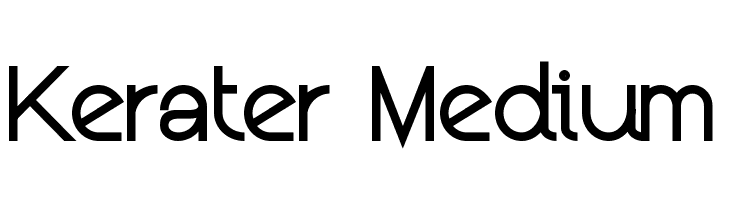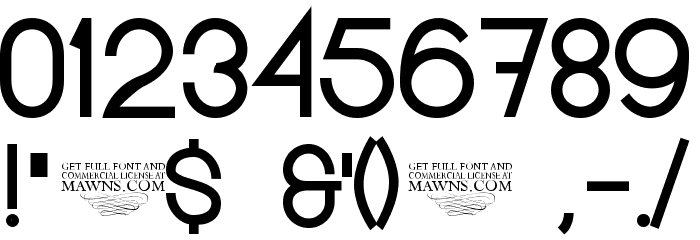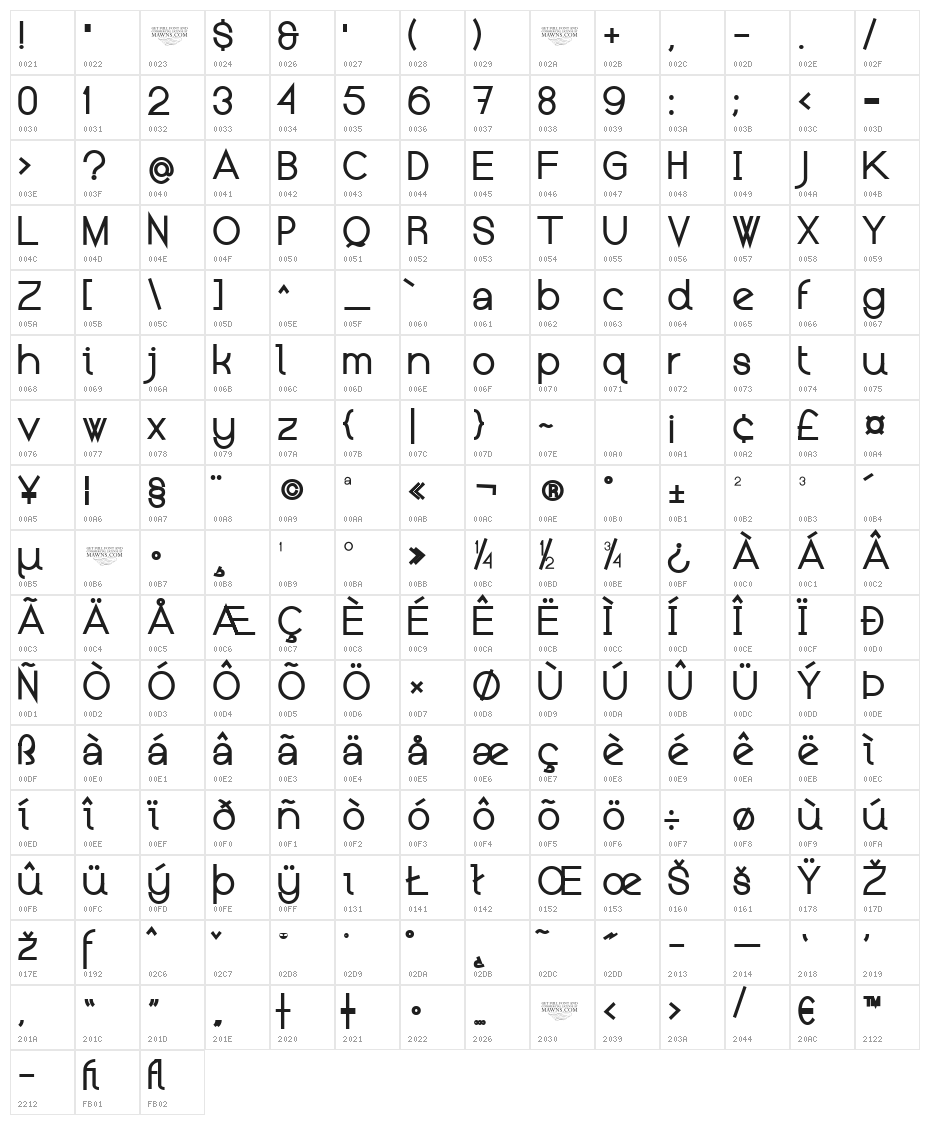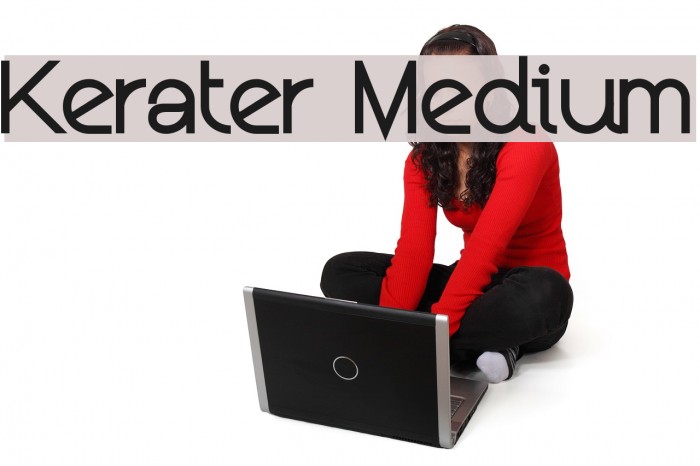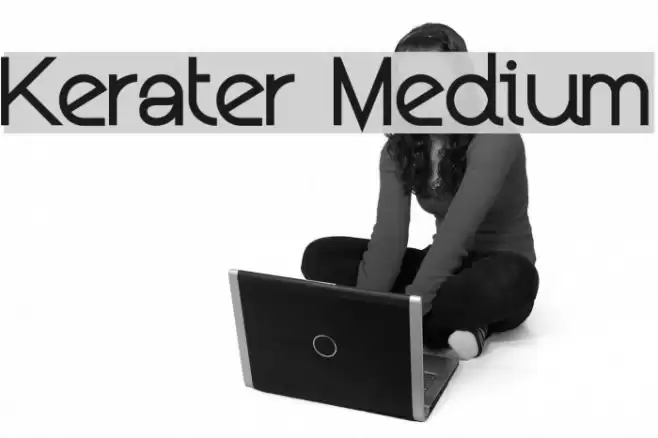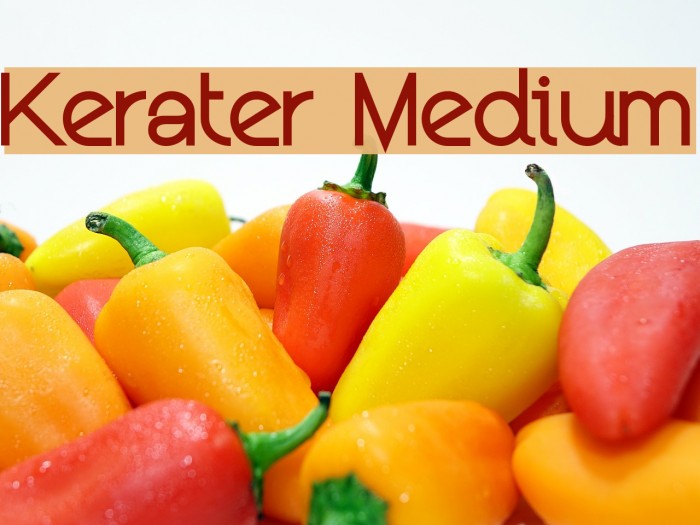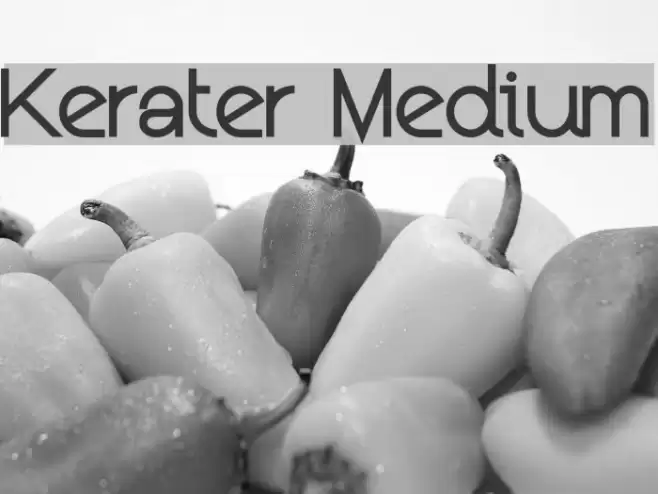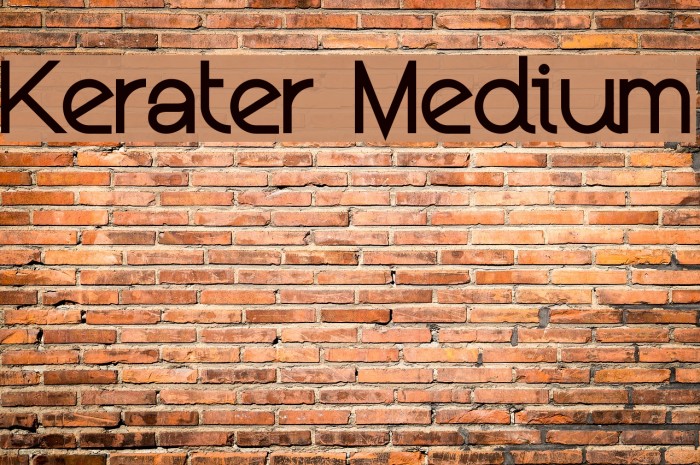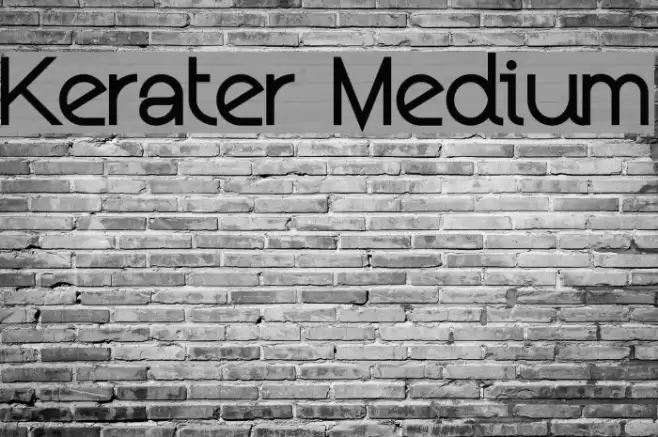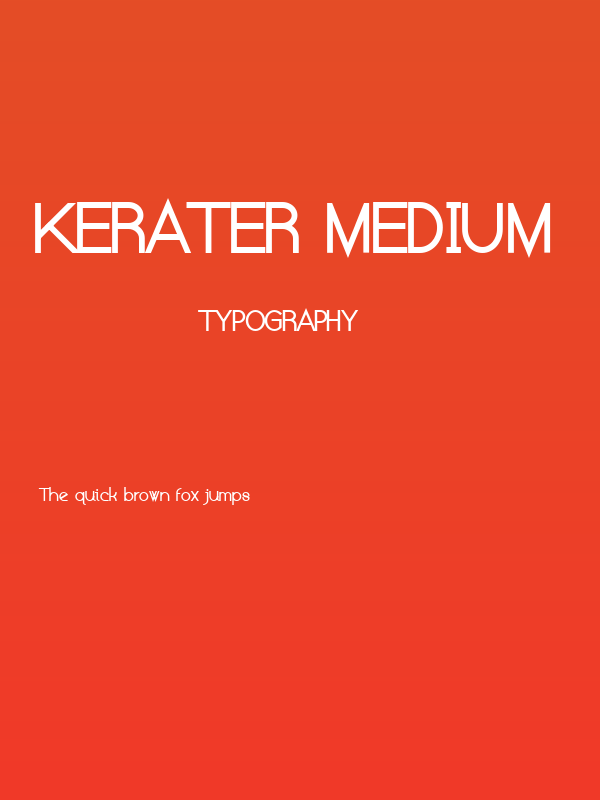
Kerater Medium Font
Kerater Medium Description
This font features a clean and modern design with a geometric structure. The characters are well-balanced with a consistent stroke width, giving it a uniform appearance. The uppercase letters are bold and commanding, while the lowercase letters maintain a smooth and rounded form. The numerals are clear and easy to read, making them suitable for various applications. Special characters are included, adding versatility to the font's use. The overall style is contemporary, making it ideal for modern design projects.
| Proposed Projects | Ideal for branding, advertising, web design, and editorial projects that require a modern and clean aesthetic. |